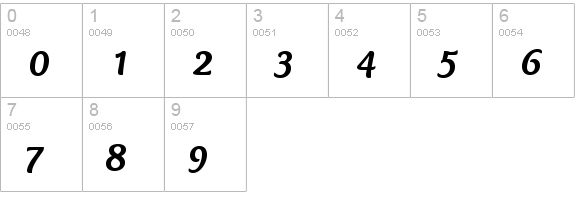
Club Type Mercurius Medium Italic is a balanced, medium-weight, italic variant in the Club typeface family \xE2\x80\x94 well suited to sub-headlines, navigation, and balanced editorial work.
Club Type Mercurius Medium Italic is a modern and elegant font that exudes sophistication and style. With its sleek lines and stylish curves, this font is perfect for adding a touch of class to any design project. The italic style adds a sense of dynamism and movement, making it perfect for headings, titles, and other eye-catching elements. This font is available for free download at FontsMarket.com, making it easily accessible to designers and creatives looking to elevate their work with a touch of elegance. Whether you're working on a branding project, a website design, or any other creative endeavor, Club Type Mercurius Medium Italic is sure to make a statement and leave a lasting impression. Download it today and add a touch of sophistication to your next project!